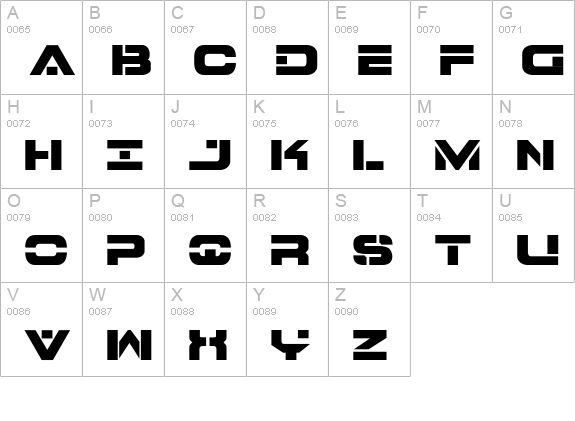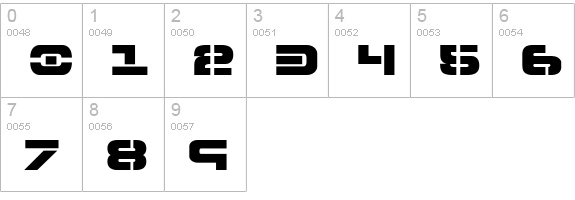
7th Service ExtraBold is an extra-heavy, attention-grabbing variant in the 7th typeface family \xE2\x80\x94 well suited to high-impact headlines, posters, and bold branding.
Introducing 7th Service ExtraBold font, a bold and impactful typeface designed to make a statement. With its strong and commanding presence, this font is perfect for headlines, titles, and branding that demands attention. The thick strokes and sharp angles of 7th Service ExtraBold exude confidence and modernity, making it an ideal choice for contemporary design projects. Not only does 7th Service ExtraBold offer a striking visual impact, but it also provides versatility for a wide range of applications. Whether used in print or digital media, this font delivers a powerful message that resonates with audiences. Best of all, 7th Service ExtraBold is freely available to download at FontsMarket.com. This means you can easily access this dynamic font and incorporate it into your projects without any hassle. Don't miss out on the opportunity to enhance your designs with the bold and expressive 7th Service ExtraBold font.